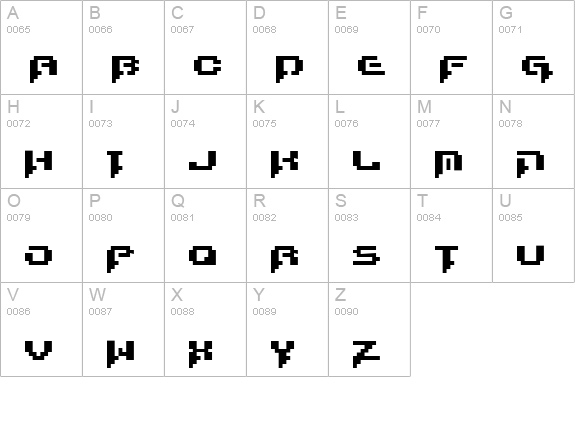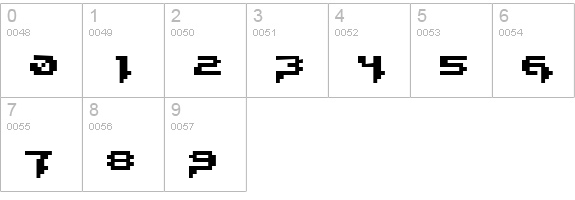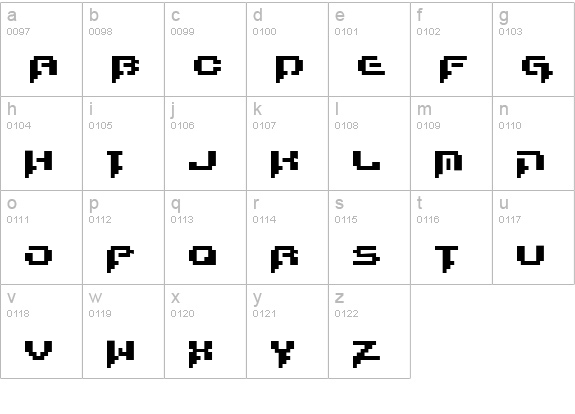
Introducing the captivating Runstop Restore font, a versatile typeface that effortlessly combines modern elegance with a touch of playfulness. This unique font features clean lines and a sleek design that is perfect for a wide range of design projects, from branding to packaging to web design. Its bold yet refined appearance makes it a standout choice for adding a touch of sophistication to any project. What makes Runstop Restore even more appealing is that it is available for free download at FontsMarket.com. This means you can easily access this stunning font and elevate your designs without any extra cost. Whether you're a seasoned designer looking to refresh your font collection or a newcomer eager to experiment with new styles, Runstop Restore is sure to inspire and impress. Download this exceptional font today and embark on a creative journey filled with endless possibilities.